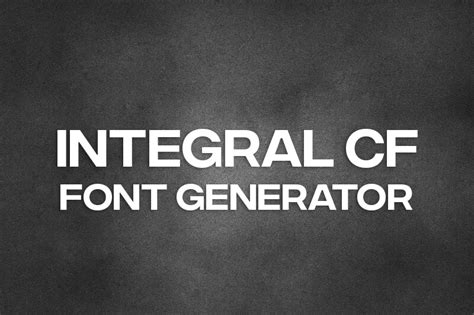
Integral Cf Font Generator. Simply generate text images and share them anywhere you like. Web integral cf sans serif font.
Web integral cf sans serif font. Integral cf is very perfect for body text and it works well in subtle headlines, short texts, screen design, branding, posters, web, and more. Web integral cf font is designed for maximum visual and emotional impact. Web using this font. Integral cf is designed for maximum visual and emotional impact. Simply generate text images and share them anywhere you like. Web how about 20,000+ commercial fonts with unlimited downloads download now. Web generate cool and amazing fonts by using integral cf font generator. Its six weights excel in posters, social media, headlines, titling,. Made from font designer named connary fagen.
Integral cf sans serif font. Integral cf is designed for maximum visual and emotional impact. Web integral cf font is designed for maximum visual and emotional impact. Integral cf is very perfect for body text and it works well in subtle headlines, short texts, screen design, branding, posters, web, and more. Web how about 20,000+ commercial fonts with unlimited downloads download now. Web using this font. Integral cf sans serif font. Web integral cf sans serif font. Its six weights excel in posters, social media, headlines, titling,. Its six weights excel in posters, social media,. Web generate cool and amazing fonts by using integral cf font generator.